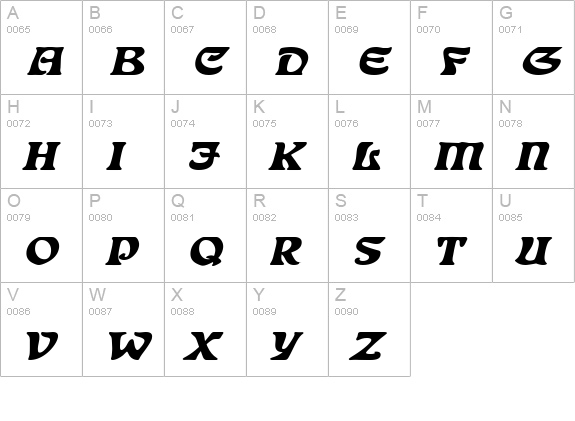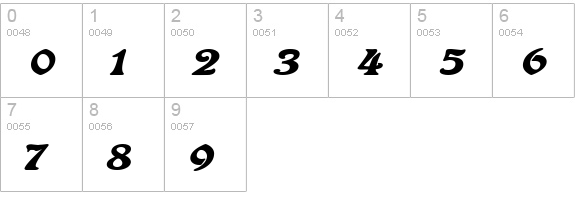
Freedom Extended BoldItalic is a distinctive, extended-width variant in the Freedom typeface family \xE2\x80\x94 well suited to design and typography projects.
Introducing Freedom Extended BoldItalic font, a striking and dynamic typeface that exudes confidence and modernity. The bold and italic elements of this font combine to create a powerful and impactful design that demands attention. Perfect for headings, titles, and other prominent text, Freedom Extended BoldItalic adds a touch of sophistication to any project. What sets Freedom Extended BoldItalic font apart is not only its bold and italic styling but also its sense of freedom and individuality. The font's unique character and versatility make it a standout choice for designers looking to make a bold statement. Whether you're working on a poster, logo, or branding project, this font will help your text stand out and leave a lasting impression. The best part? Freedom Extended BoldItalic font is available for free download at FontsMarket.com. Now you can easily access this stylish and impactful font to elevate your designs without breaking the bank. Don't miss out on the opportunity to add Freedom Extended BoldItalic to your font collection and unleash your creativity with its bold and dynamic style.